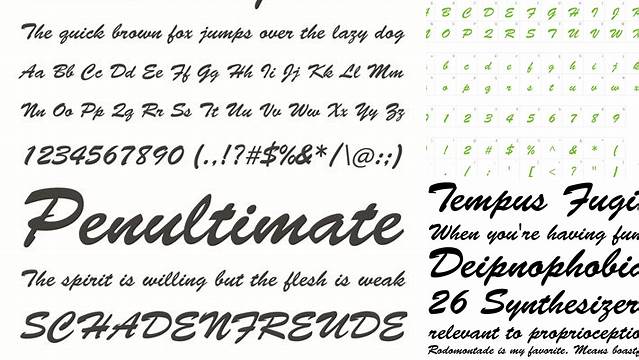
Hey guys! Are you on the hunt for that perfect, flowing script font to add a touch of elegance and personality to your projects? Look no further! In this comprehensive guide, we're diving deep into the world of Brush Script Std, a classic typeface that's been a favorite among designers for decades. We'll explore its history, characteristics, best uses, and most importantly, where you can find a brush script std font free download. So, grab your coffee, settle in, and let's get started!
What is Brush Script Std?
First things first, what exactly is Brush Script Std? This iconic font is a casual, connecting script typeface designed by Edwin W. Shaar in 1942. Imagine the graceful strokes of a calligraphy pen brought to life in digital form – that's Brush Script Std in a nutshell. Its characters flow seamlessly into each other, creating a handwritten feel that's both stylish and approachable. The font's unique charm lies in its irregular strokes and varying thickness, giving it a natural, organic quality that sets it apart from more rigid typefaces. Think of it as the digital equivalent of beautiful handwriting, perfect for adding a personal touch to your designs.
Brush Script Std has a rich history, initially gaining popularity in the mid-20th century for its use in advertising and signage. Its retro vibe evokes a sense of nostalgia, making it a popular choice for projects that aim to capture a vintage aesthetic. The font’s distinct personality makes it incredibly versatile, suitable for a wide range of applications from invitations and greeting cards to logos and branding materials. In a world of sterile, overly-perfected fonts, Brush Script Std stands out for its human touch and inherent warmth. Whether you're designing a wedding invitation or crafting a logo for a coffee shop, this font can add a touch of authenticity and charm. Its handwritten style injects a sense of personality that resonates with viewers, creating a connection that's often missing in more formal typefaces. Understanding the nuances of Brush Script Std's design allows you to effectively integrate it into your creative projects, enhancing their visual appeal and communicative power. So, when you think of a font that bridges the gap between digital precision and handcrafted artistry, remember the timeless elegance of Brush Script Std. Its legacy continues to inspire designers, making it a staple in the world of typography.
Key Characteristics of Brush Script Std
What makes Brush Script Std so special? Let's break down its key characteristics to understand why it's such a beloved font. One of the most defining features is its connected script style. Each letter gracefully flows into the next, creating a seamless, handwritten appearance. This connectivity is crucial to the font's overall aesthetic, giving it a sense of fluidity and naturalness. Unlike fonts where letters stand alone, Brush Script Std emulates the continuous strokes of a calligrapher's pen, making it feel organic and less rigid.
Another important characteristic is the variation in stroke thickness. Just like in real handwriting, the lines of Brush Script Std fluctuate, adding depth and visual interest. This subtle variation prevents the font from looking too uniform or mechanical, contributing to its handcrafted feel. The thicker strokes emphasize certain parts of the letters, while thinner strokes provide delicate contrast, mimicking the natural rhythm of handwriting. This dynamic quality is essential to the font’s charm and sets it apart from more monotone script typefaces. Beyond the connectivity and stroke variation, Brush Script Std also boasts a distinct retro vibe. Its design harkens back to the mid-20th century, a period known for its emphasis on hand-lettering and personalized design. This vintage aesthetic makes it a popular choice for projects that aim to evoke nostalgia or a classic feel. Whether you're designing a poster for a retro-themed event or creating branding materials for a vintage shop, Brush Script Std can instantly transport your audience back in time. The font’s unique combination of fluidity, variation, and retro charm makes it incredibly versatile. It’s not just about looking pretty; it’s about conveying a specific mood and message. The font’s personality allows it to adapt to various design contexts, from formal invitations to casual branding. Its versatility makes it a valuable asset in any designer’s toolkit, offering a timeless option that remains relevant across different styles and trends. So, when choosing a script font, consider how these key characteristics of Brush Script Std can enhance your design and effectively communicate your message. Its distinctive features provide a unique blend of elegance and personality that can elevate any project.
Best Uses for Brush Script Std
Now that we know what Brush Script Std is and what makes it unique, let's talk about the best ways to use it. This font is incredibly versatile, but it truly shines in certain applications. One of the most popular uses for Brush Script Std is in invitations and greeting cards. Its elegant, handwritten style adds a personal touch, making it perfect for wedding invitations, birthday cards, and other special occasions. The flowing script creates a sense of warmth and sophistication, setting the tone for memorable events. Imagine receiving a beautifully crafted invitation with Brush Script Std gracing the envelope – it instantly conveys a sense of care and attention to detail.
Another excellent use case for Brush Script Std is in logos and branding materials. If you're aiming for a brand identity that feels approachable and handcrafted, this font can be a game-changer. It’s particularly well-suited for businesses in creative fields, such as bakeries, coffee shops, and boutiques. The font’s unique personality helps create a memorable brand image, distinguishing your business from the competition. Think of the logos you admire – many of them utilize script fonts to convey a sense of authenticity and charm. Brush Script Std offers that same quality, making it an invaluable tool for brand building. Beyond invitations and logos, Brush Script Std also excels in headlines and display text. Its distinctive style can grab attention and add a touch of flair to your designs. However, it’s crucial to use it sparingly in this context. Overusing script fonts in large blocks of text can make your design look cluttered and difficult to read. Instead, use Brush Script Std to highlight key words or phrases, creating visual interest without sacrificing readability. This font’s ability to stand out makes it an effective tool for emphasizing important information, guiding the viewer’s eye and making your message more impactful. Ultimately, the best uses for Brush Script Std involve striking a balance between elegance and functionality. Its versatility allows it to enhance a wide range of projects, but it’s essential to use it thoughtfully and intentionally. Whether you’re designing an invitation, crafting a logo, or creating eye-catching headlines, Brush Script Std can add a touch of personality and sophistication that sets your work apart.